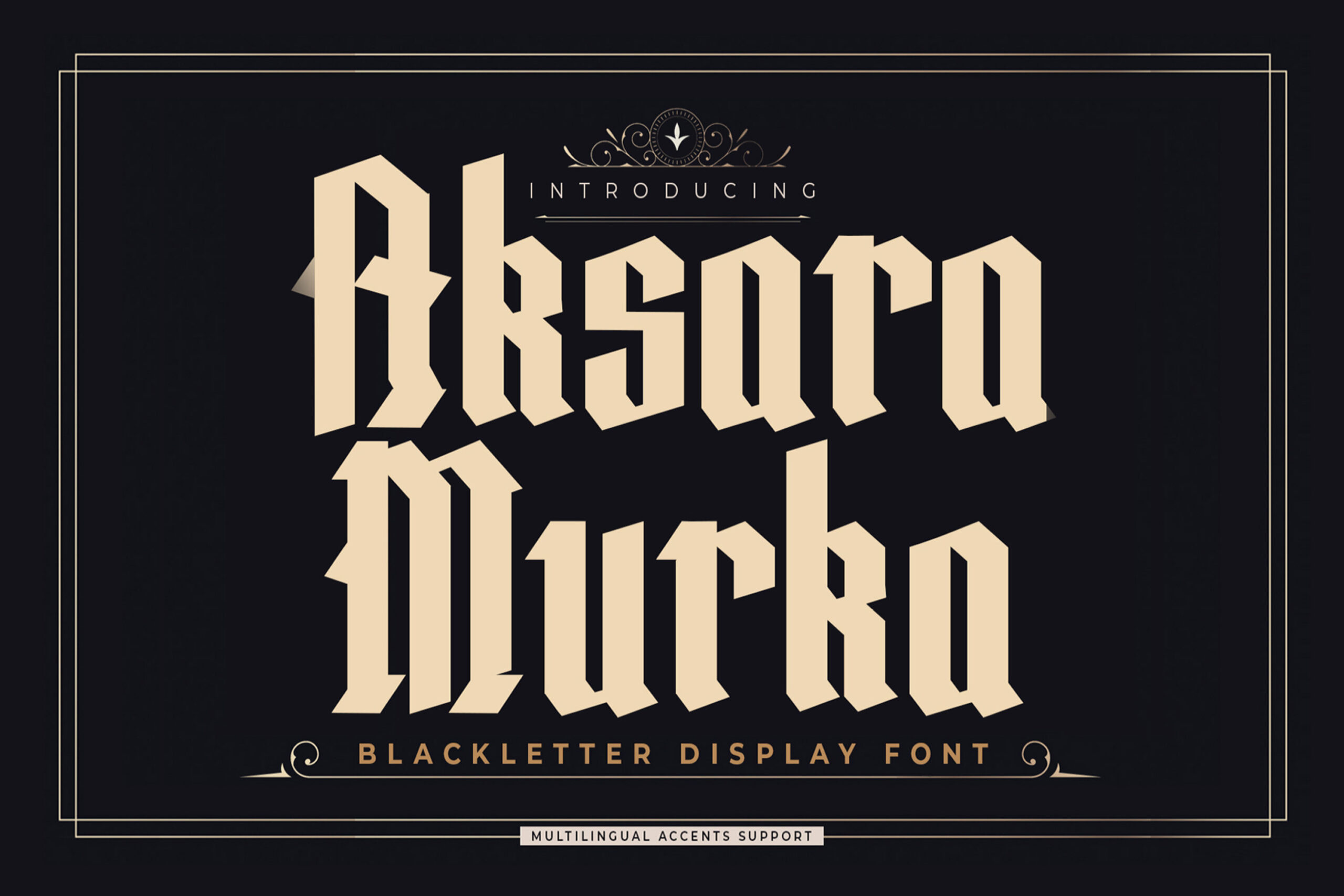
Hello Everyone, introduce our new product Font Aksara Murka – Blackletter Display Font, modern style and dramatic movement that is written casually and quickly.
The best for labels, poster, project designs look modern, authentic and fun. It’s perfect for labels, quotes, posters, DIY projects, branding, packaging, greeting cards, websites, photography overlays, signs, scrapbooking, tags and so much more! That is why Aksara Murka has a textured, and unique characteristic more natural look.